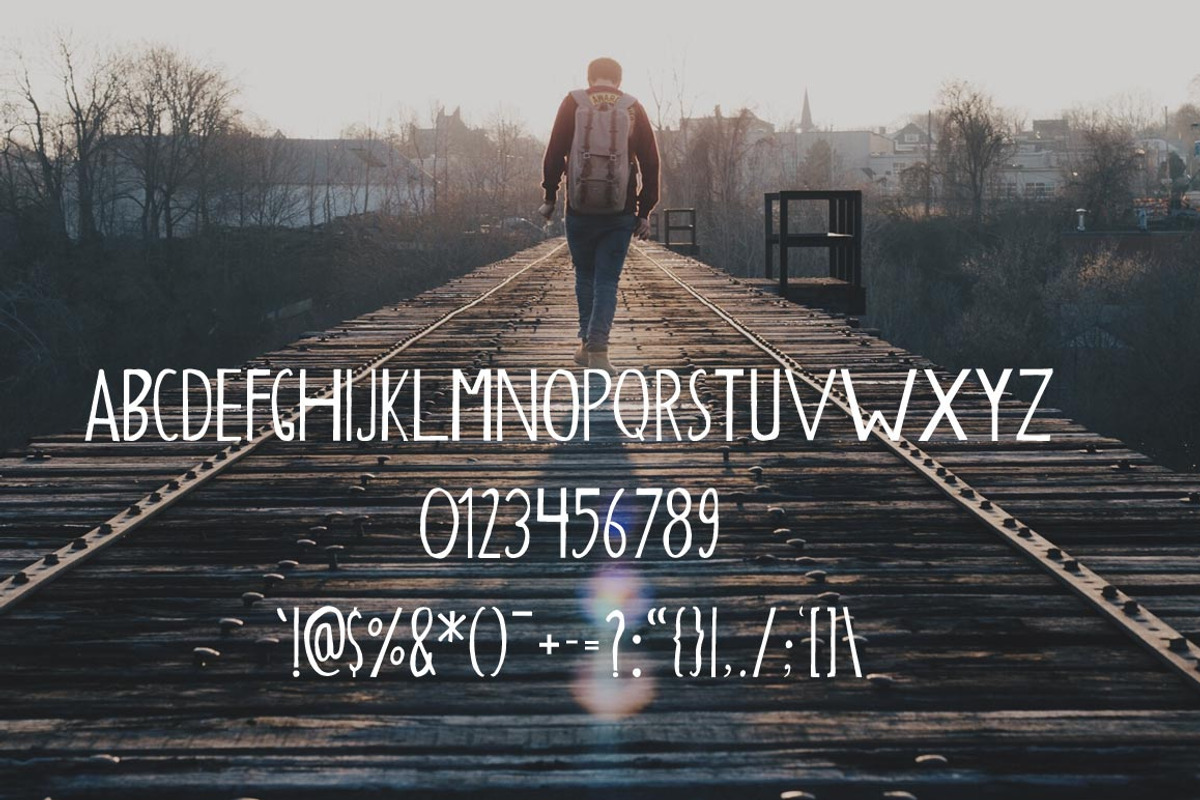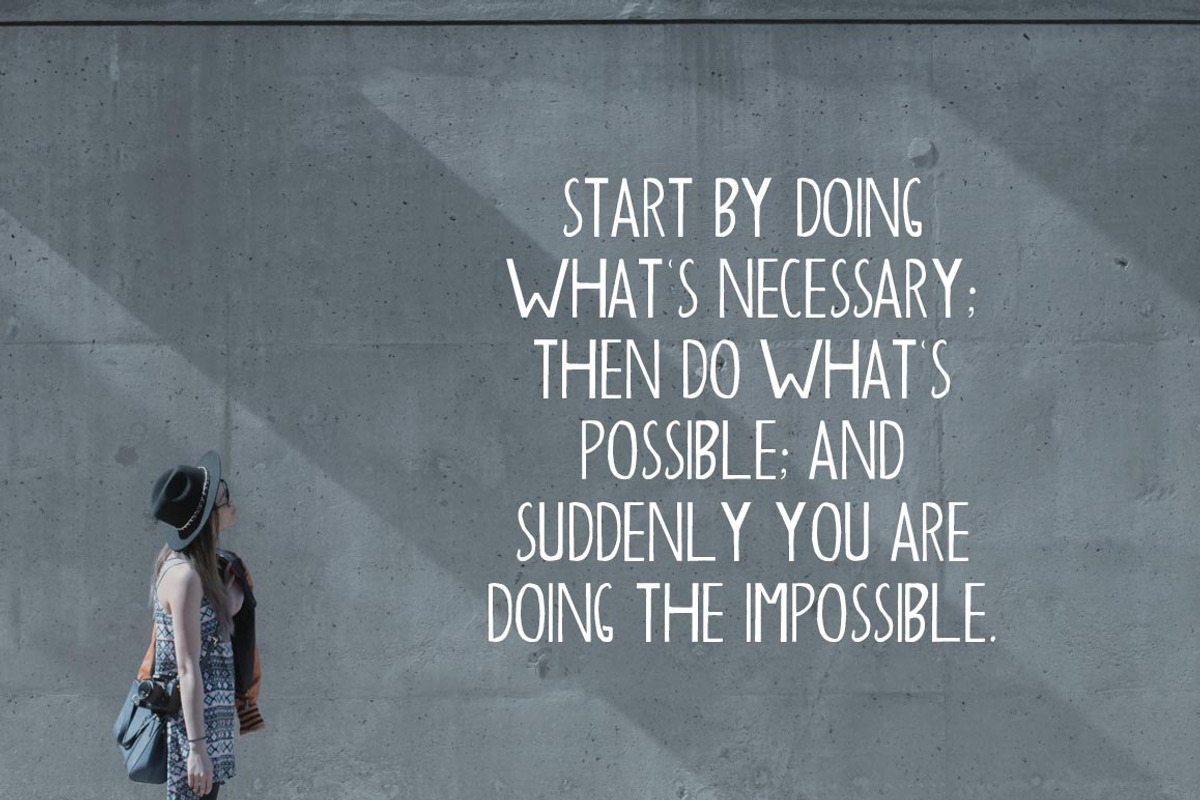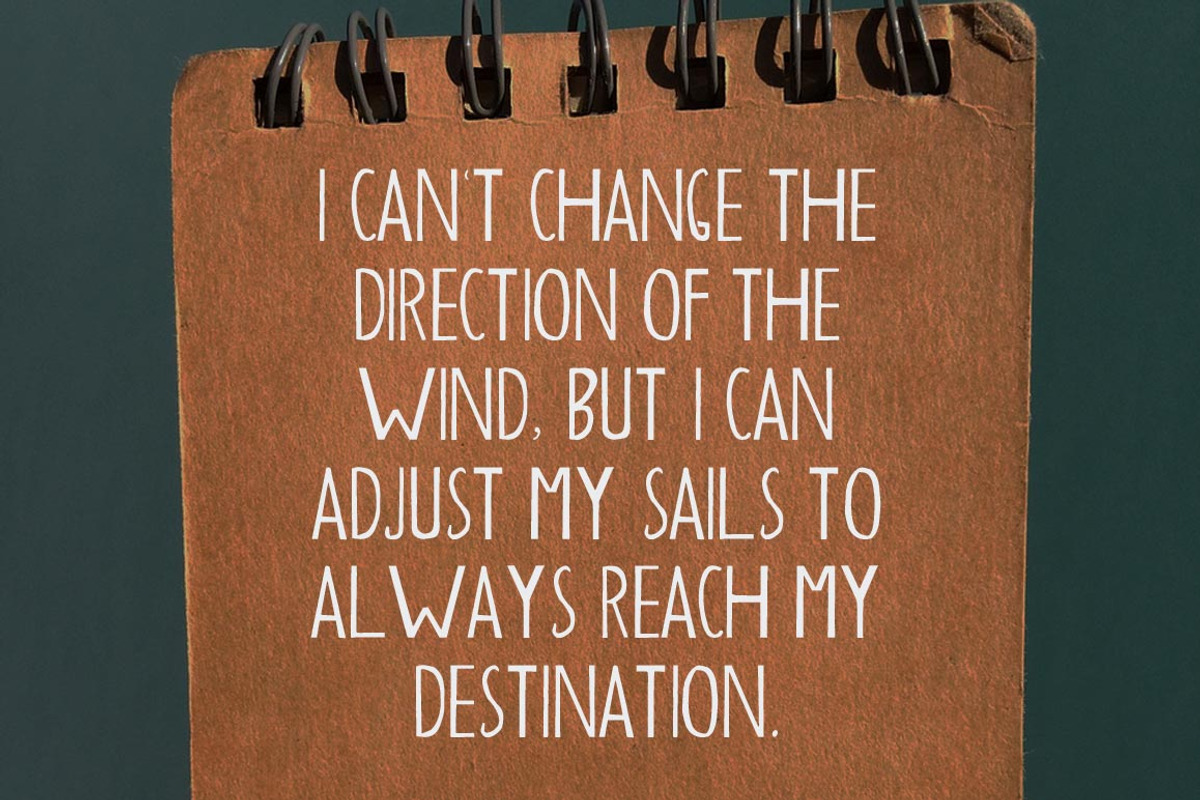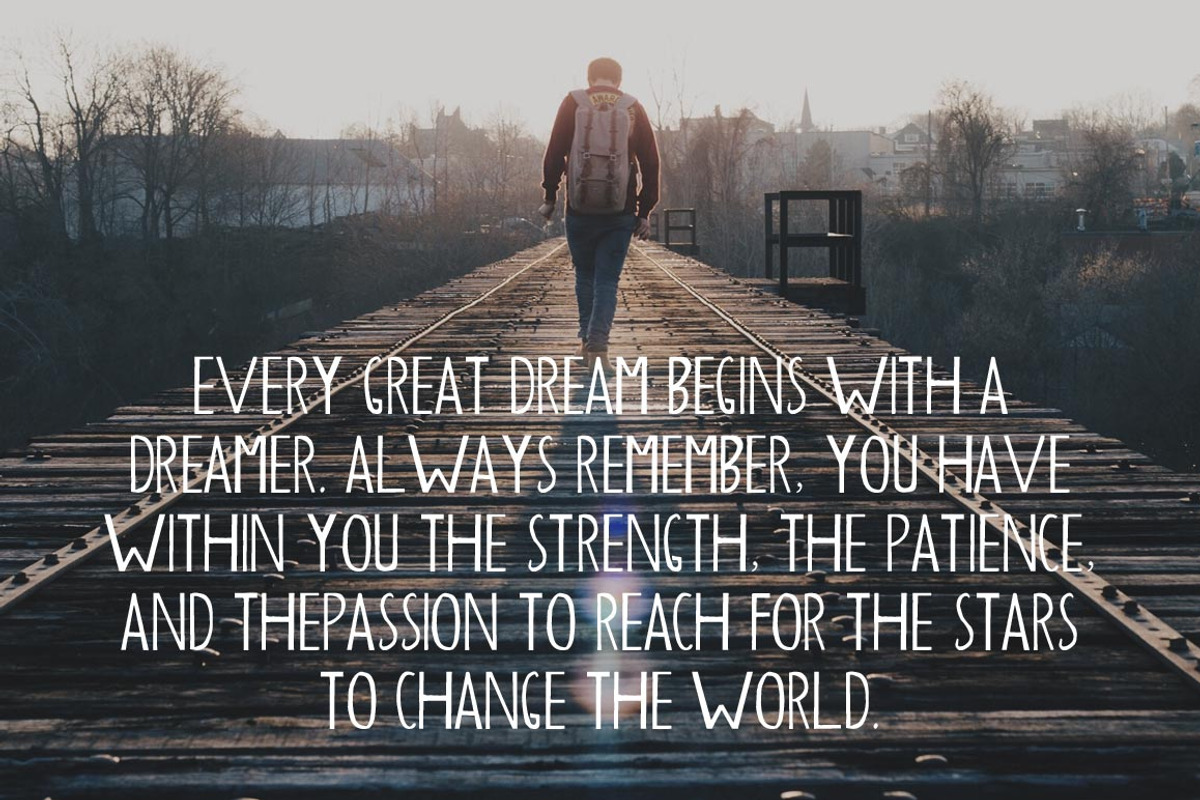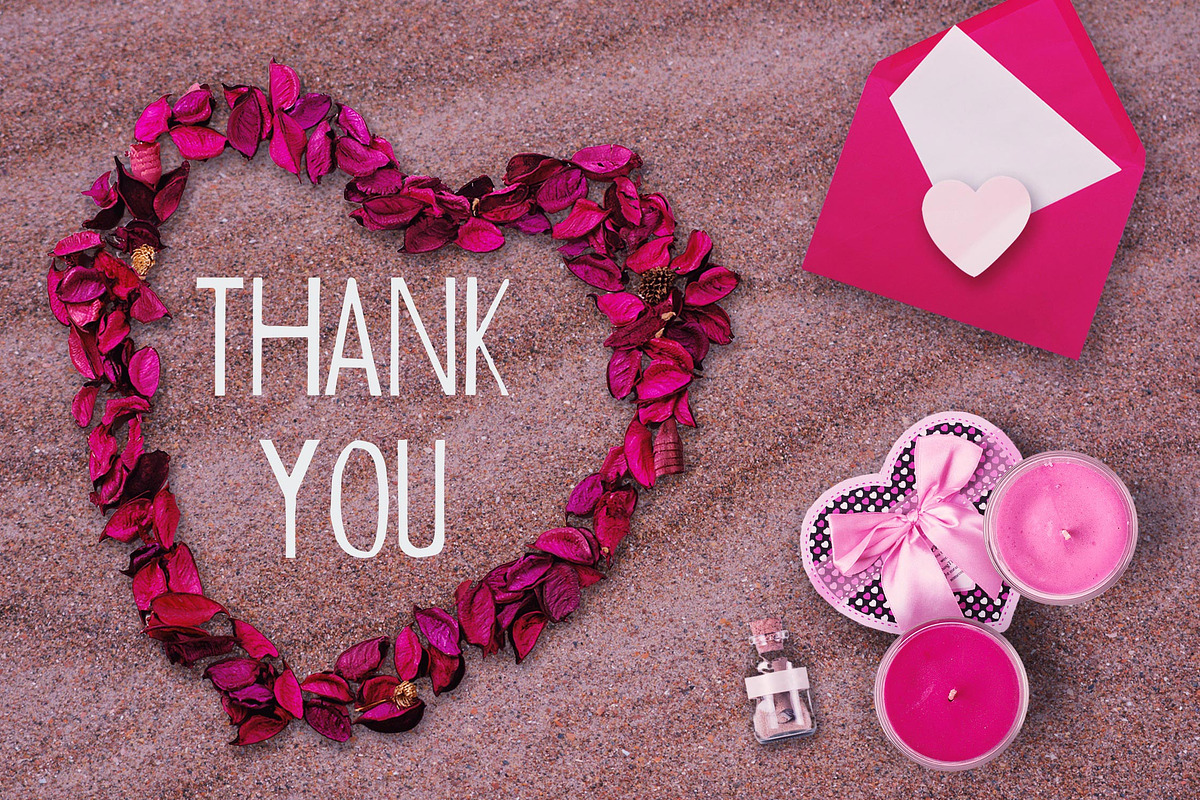
Barkat Calligraphy Font
Barkat Calligraphy Font by Creativetacos is a font selected for branding, posters, packaging, typography.
- Uppercase Multilingual Letters
- Lowercase Multilingual Letters
- Numbers & Punctuation
Why Barkat Calligraphy Font is worth a look
Barkat Calligraphy Font by Creativetacos fits naturally into Branding, posters, packaging, typography.